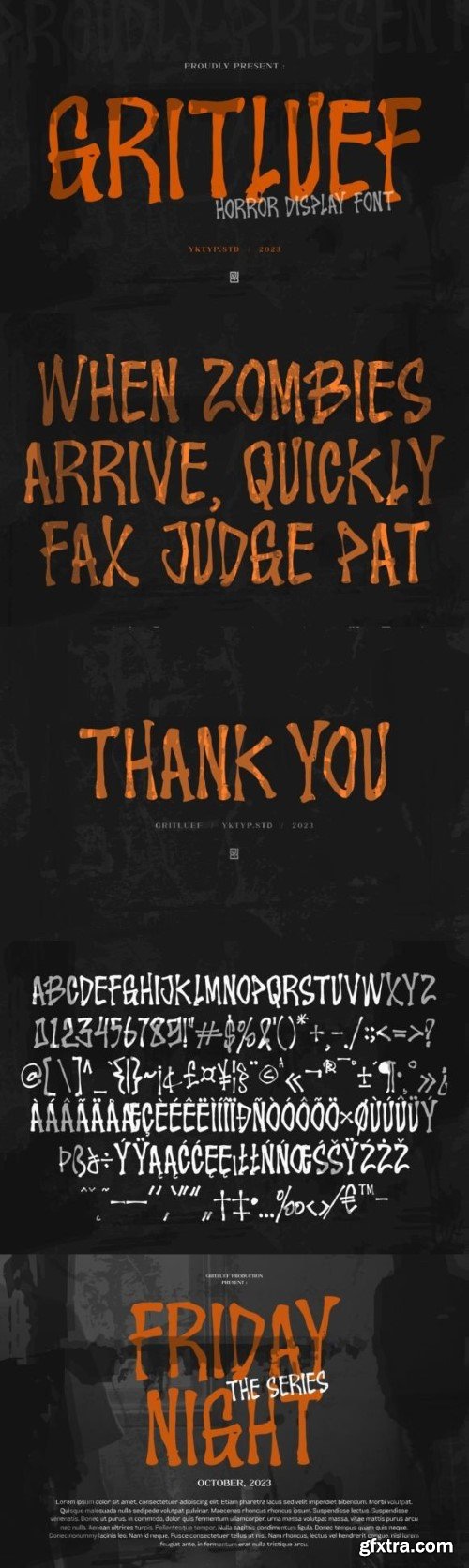
gritty font
Get ready to give your designs a spine-chilling makeover with this horror display font!
Proudly Present: Gritluef – Horror display font
The perfect choice to add an extra dose of fright to your spooky posters, Halloween invitations, and creepy projects